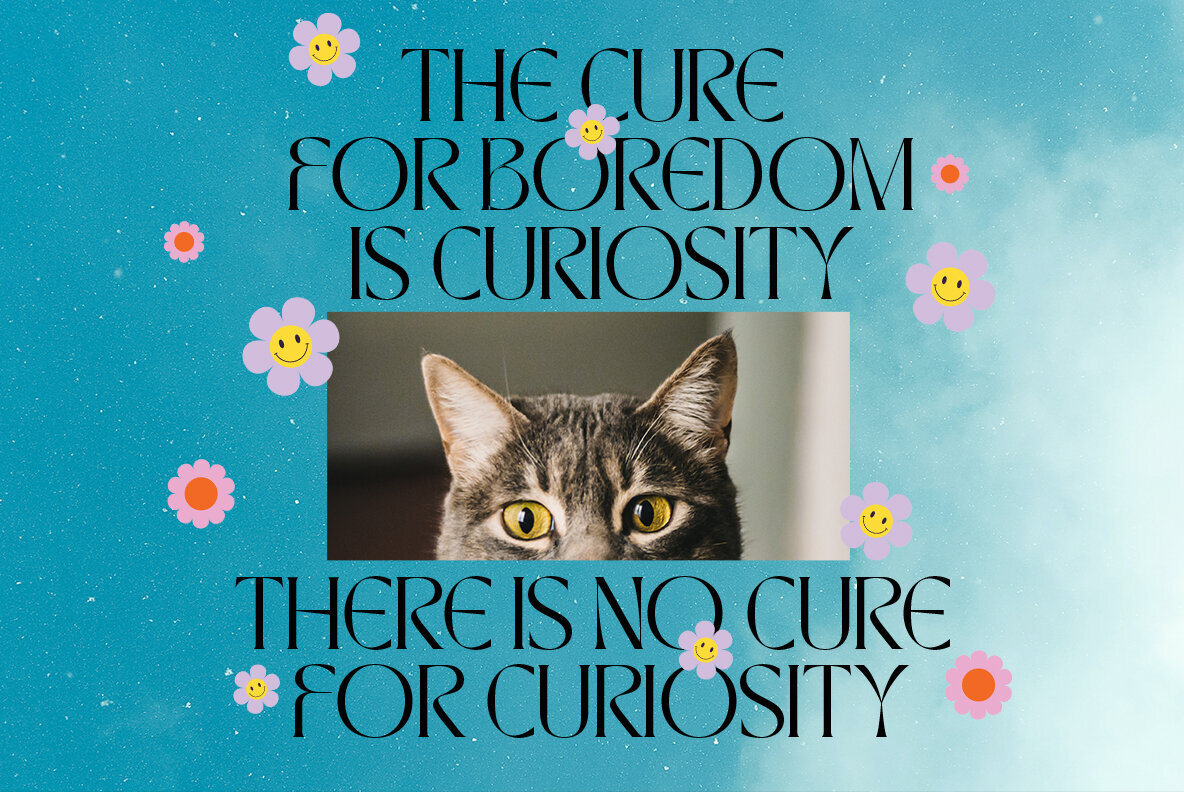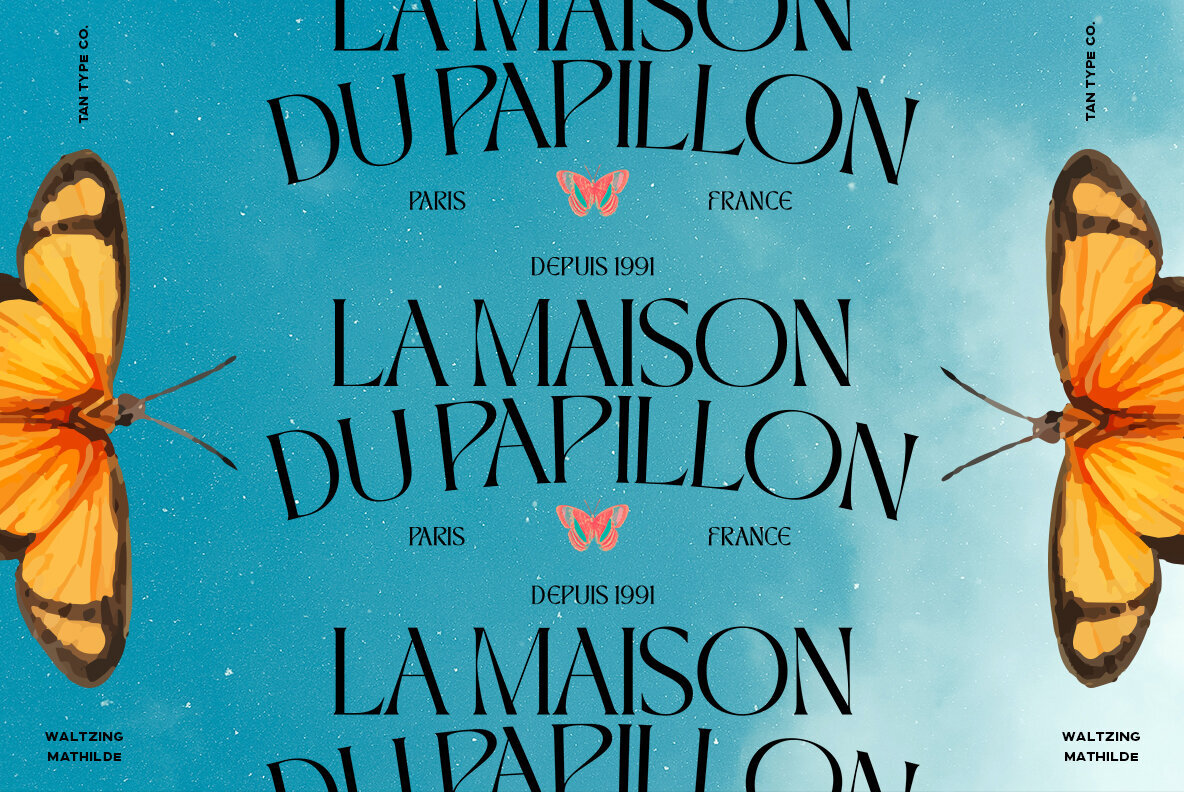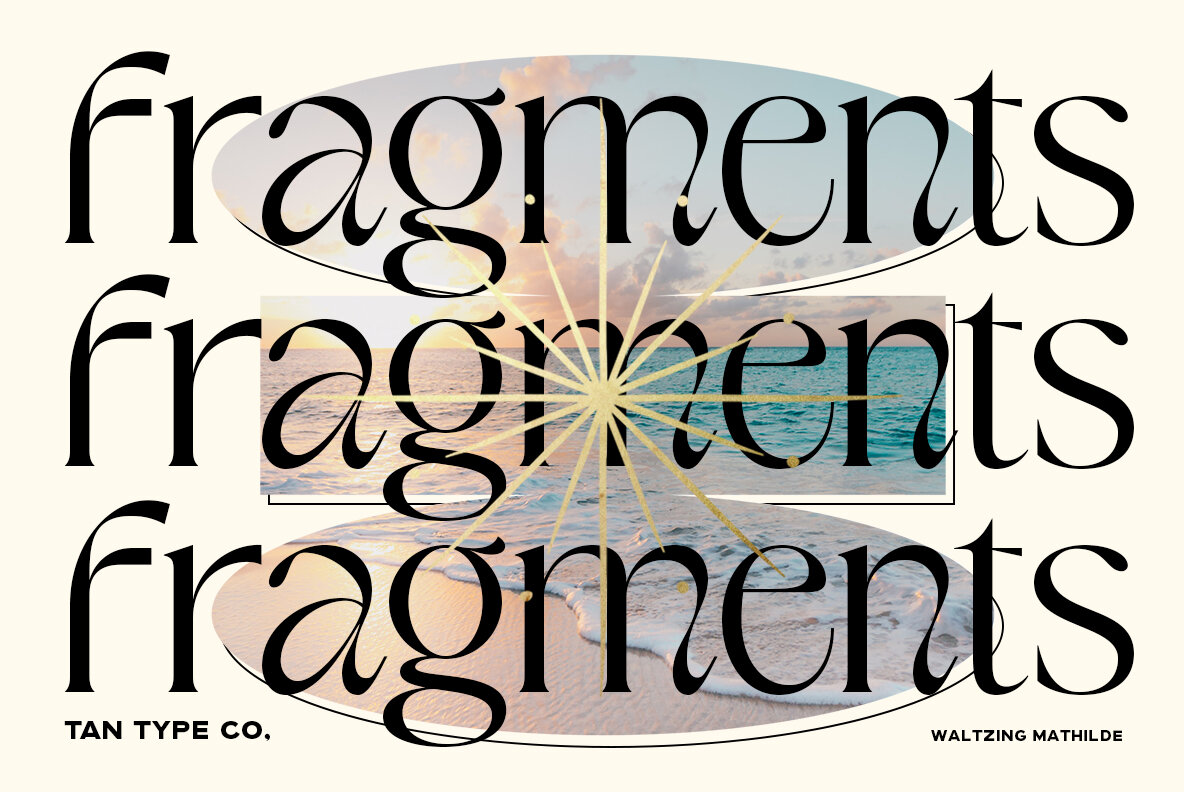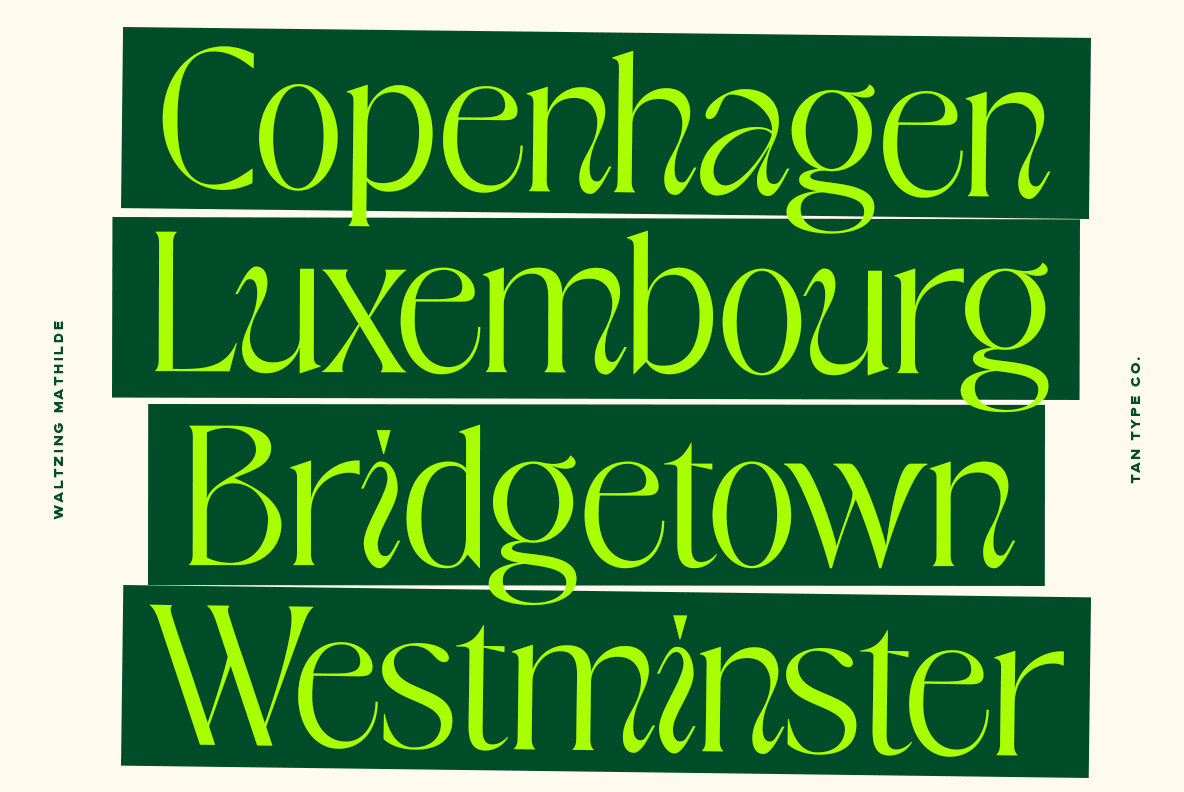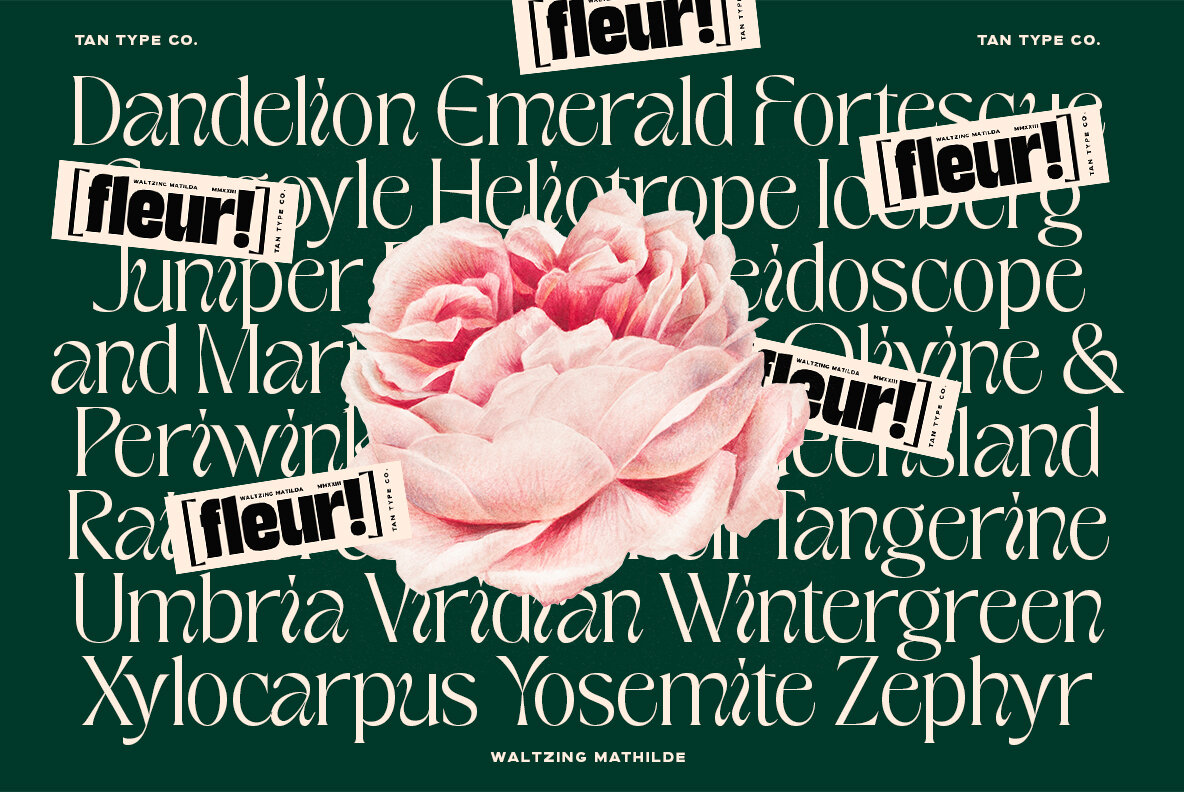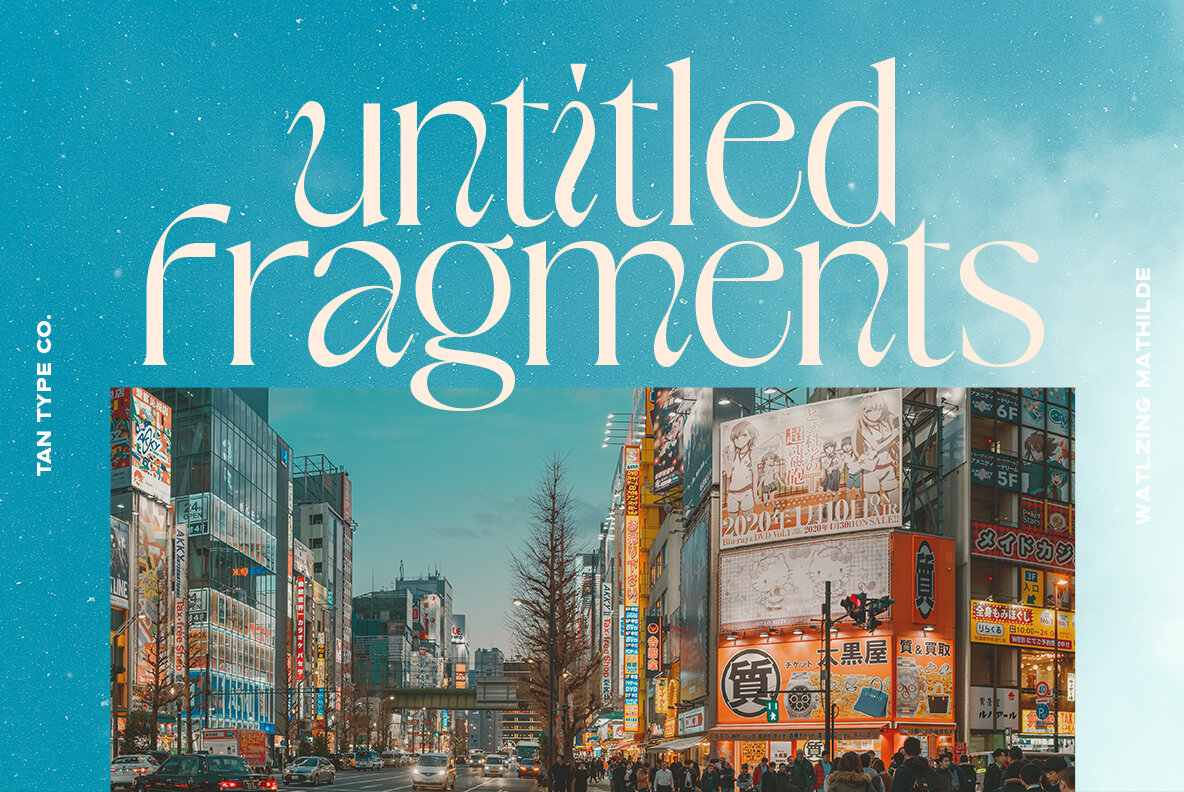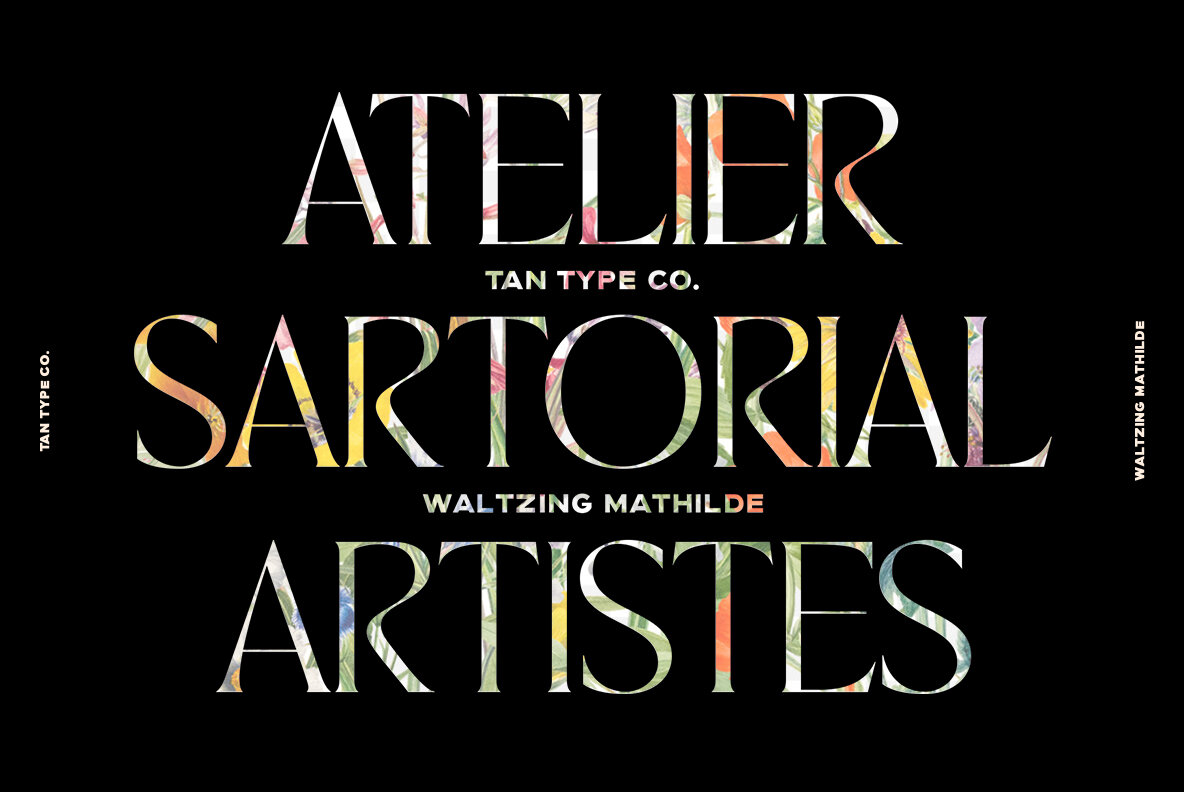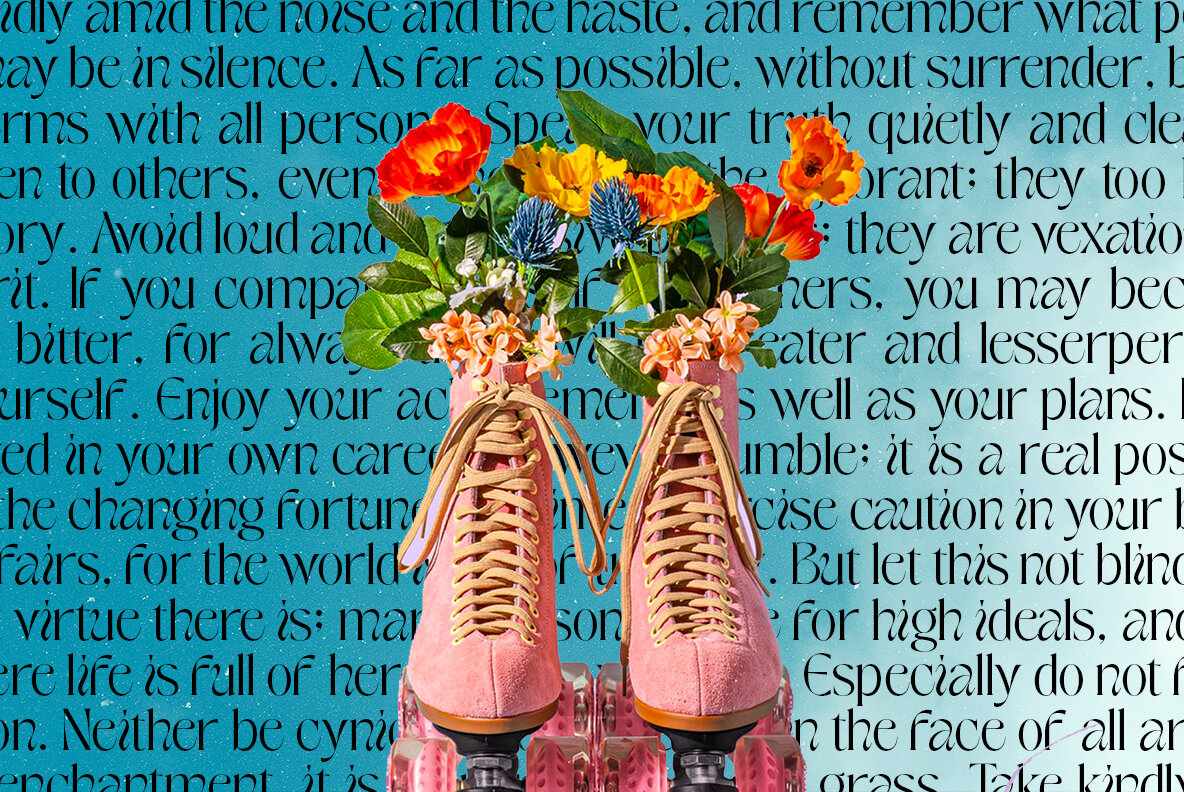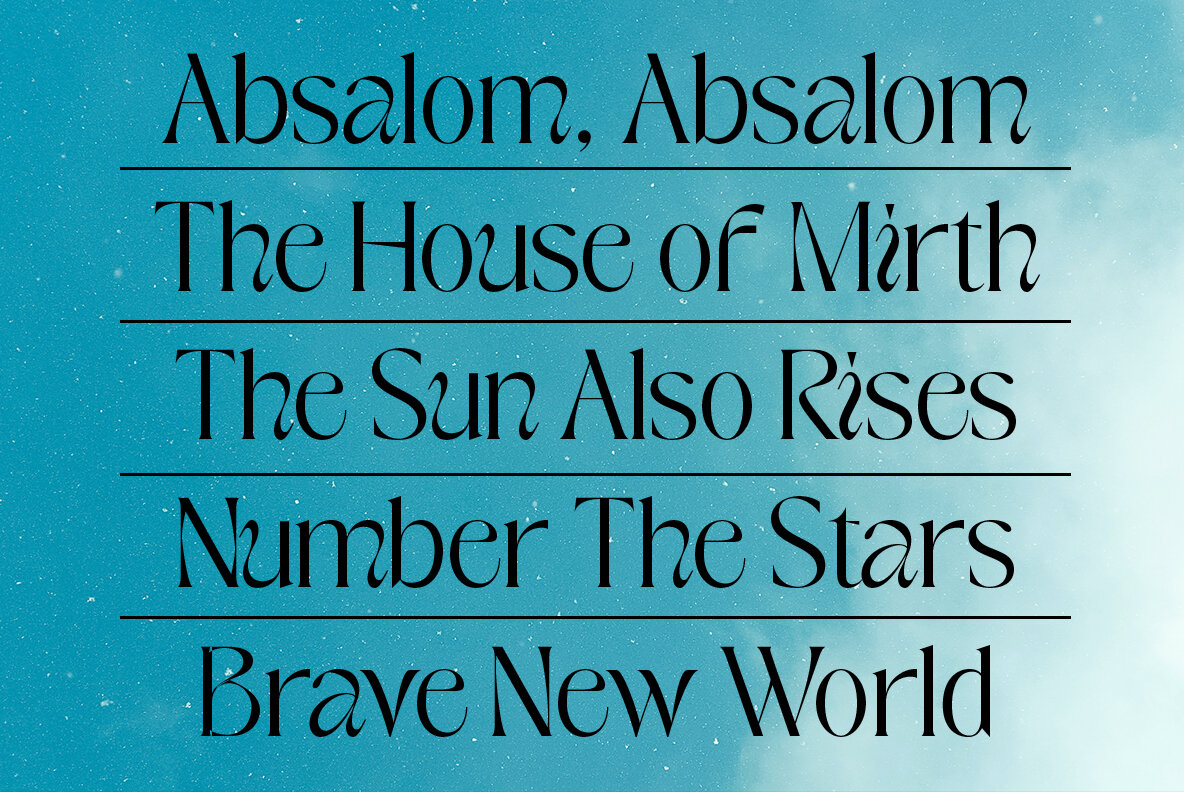
TAN Waltzing Mathilde Font
TAN WALTZING MATHILDE DISPLAY
Unveil the charm of TAN Waltzing Mathilde, a display serif font that exudes a playful yet elegant demeanor. With its subtle quirks, this typeface is designed to add flair and character to your creative projects, offering a unique balance between sophistication and whimsy.TAN Waltzing Mathilde: Playful Display Serif